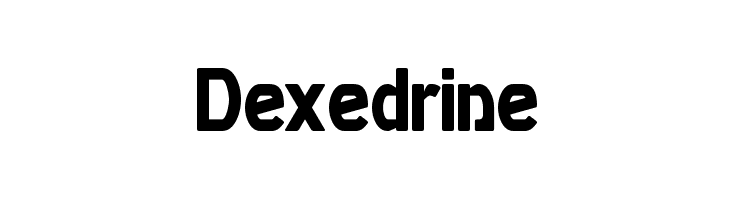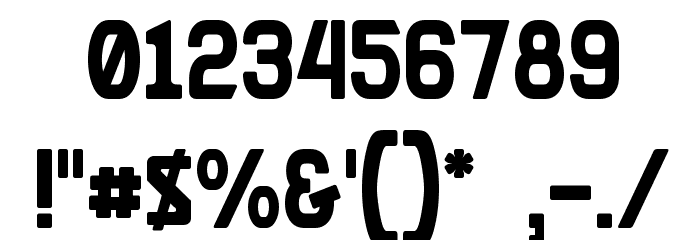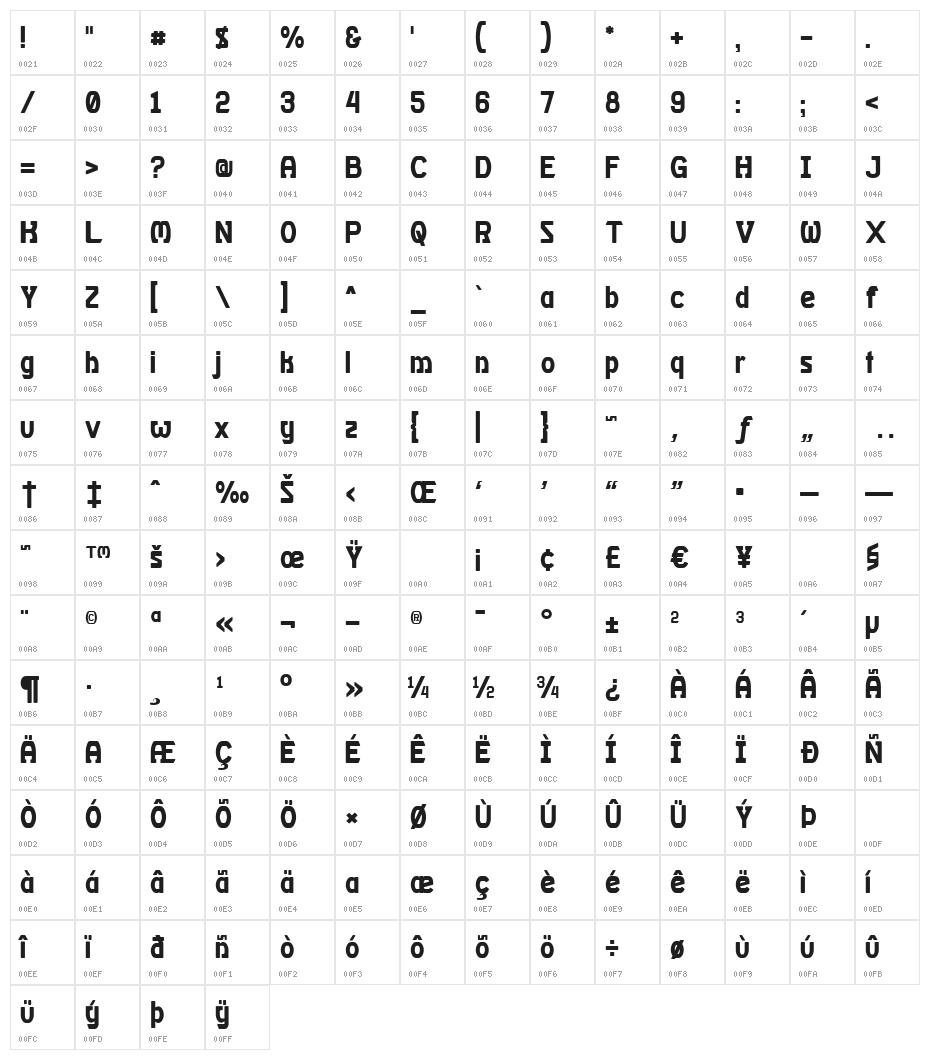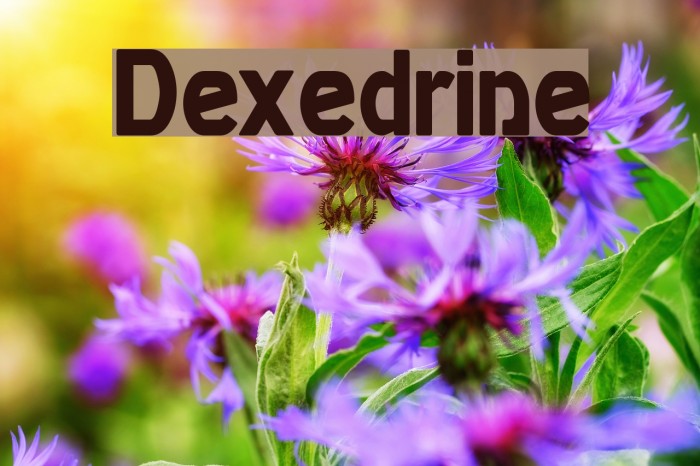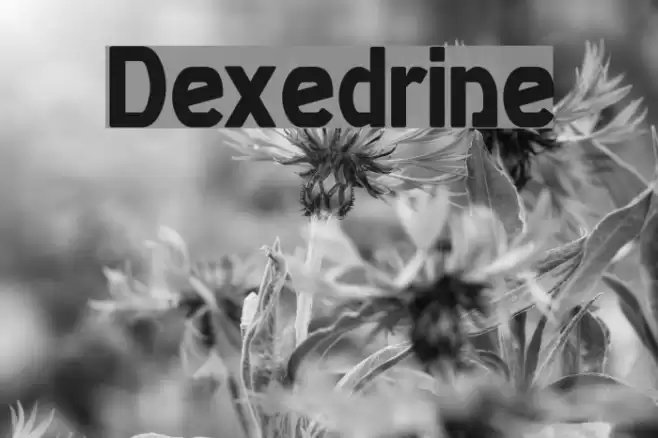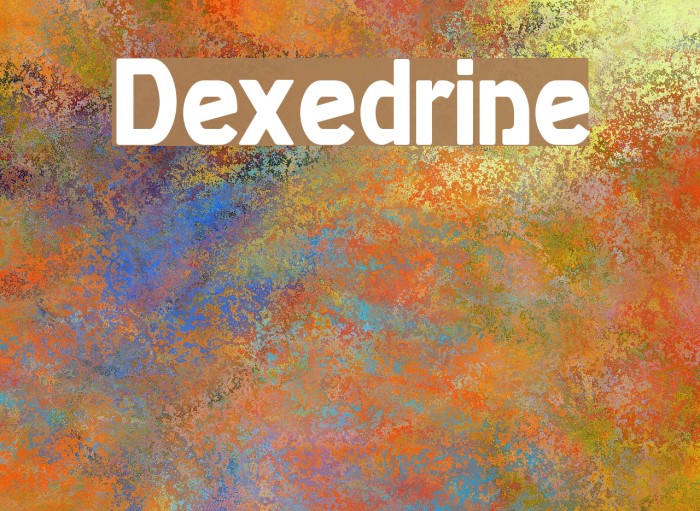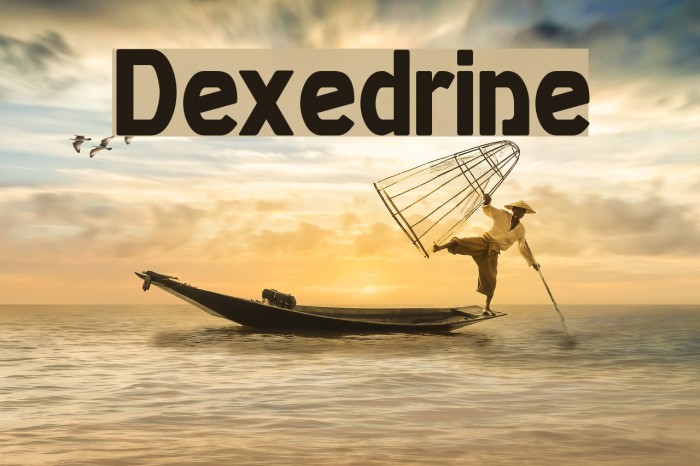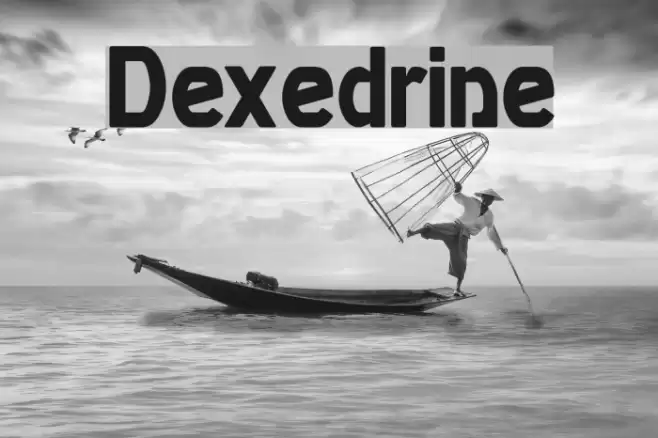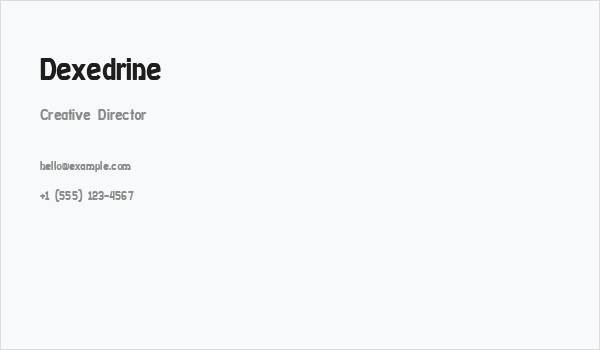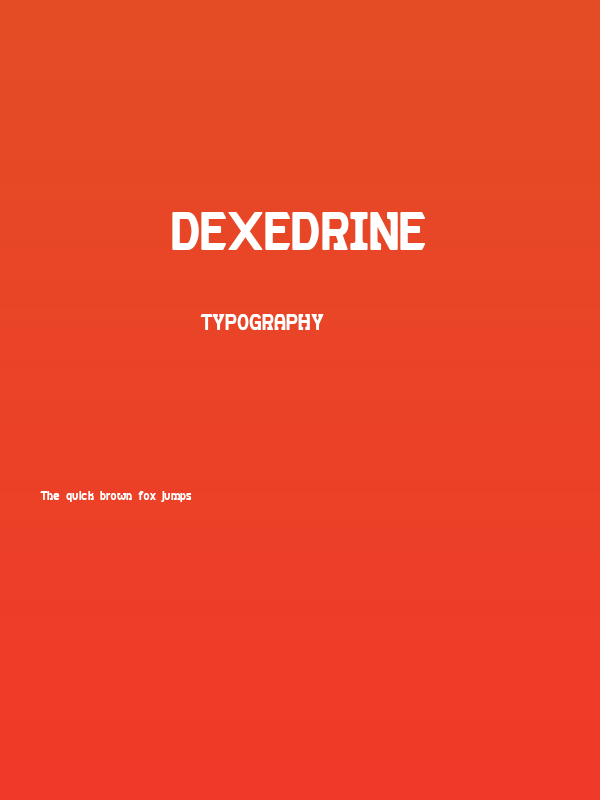
Dexedrine Font
Dexedrine Description
This font features a bold and robust design with a modern, geometric aesthetic. The characters are uniformly thick, giving it a strong presence. The uppercase letters are particularly striking, with a blocky and slightly condensed form that maintains readability. The lowercase letters mirror this style, offering a cohesive look across different text cases. Numbers and special characters follow the same design principles, ensuring consistency throughout. The font's boldness and unique style make it suitable for attention-grabbing headlines and impactful designs.
| Proposed Projects | Ideal for branding, posters, headlines, and any design requiring a strong visual impact. |